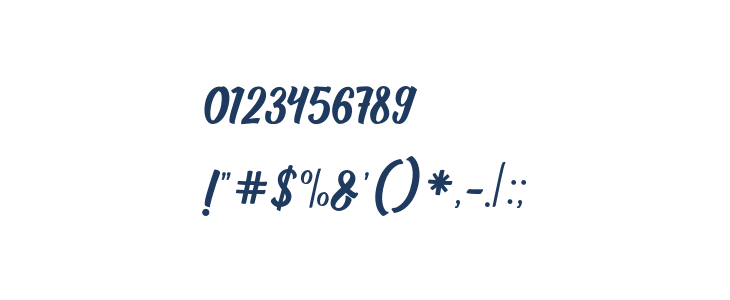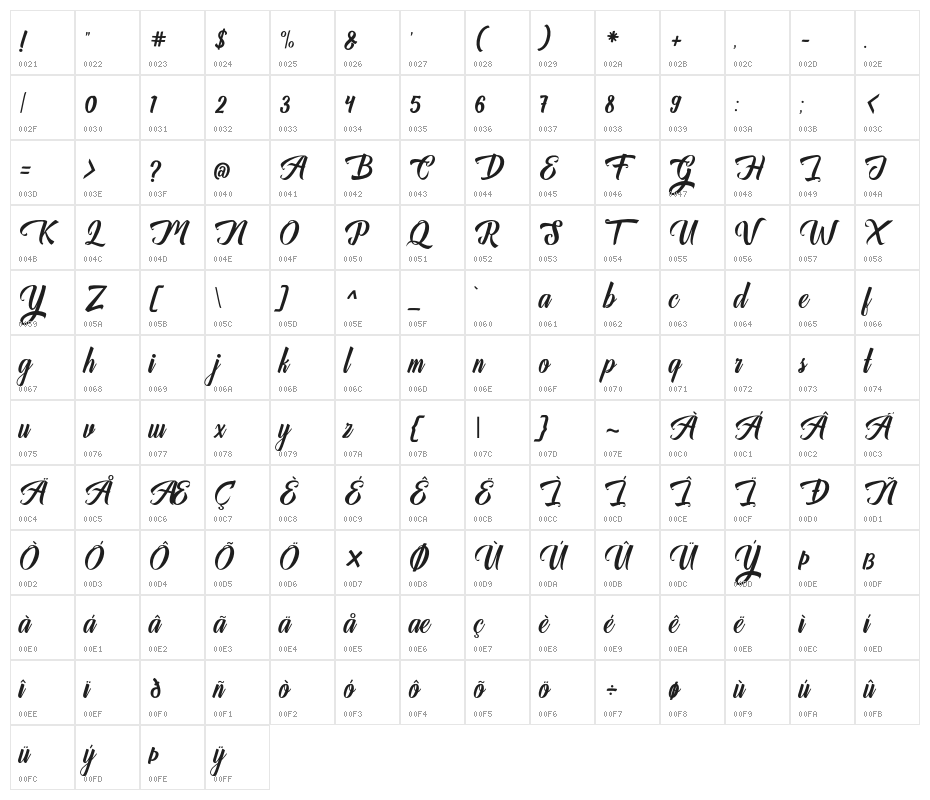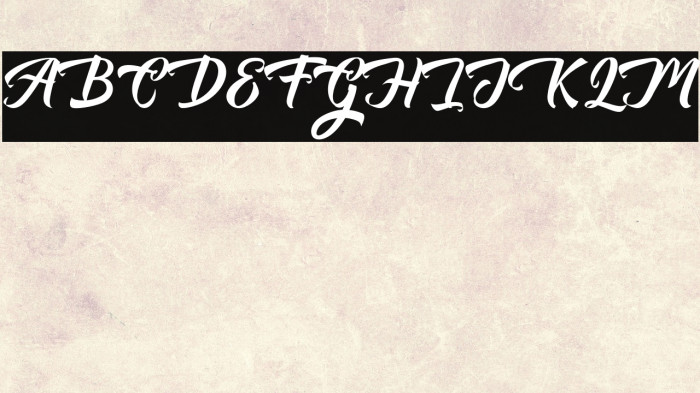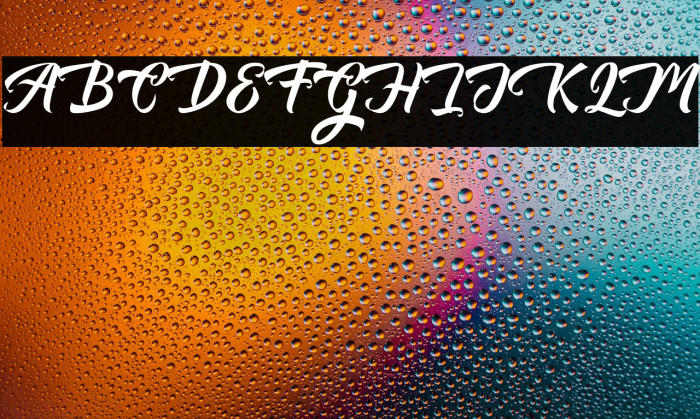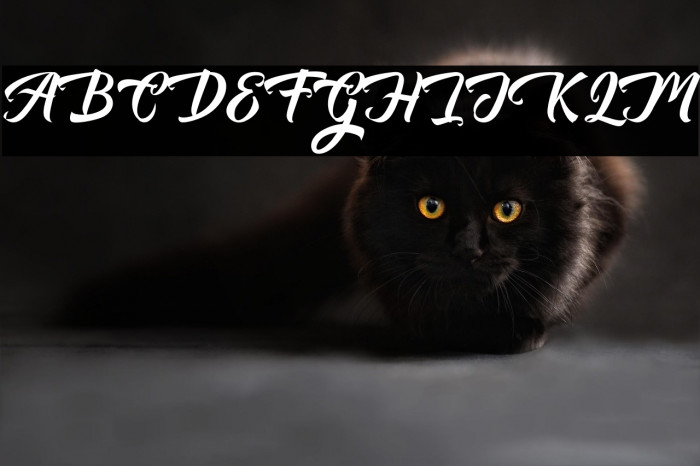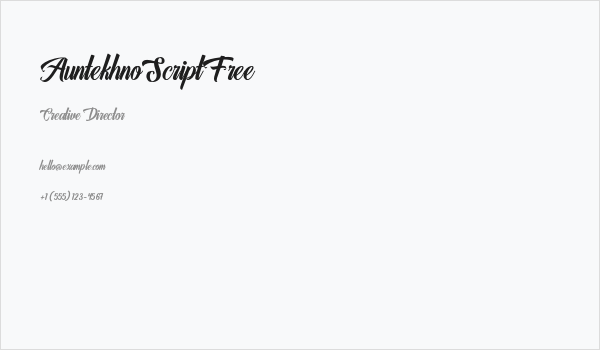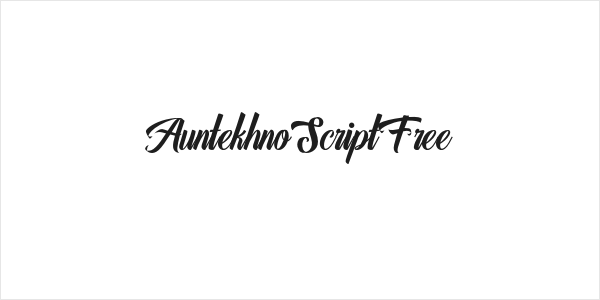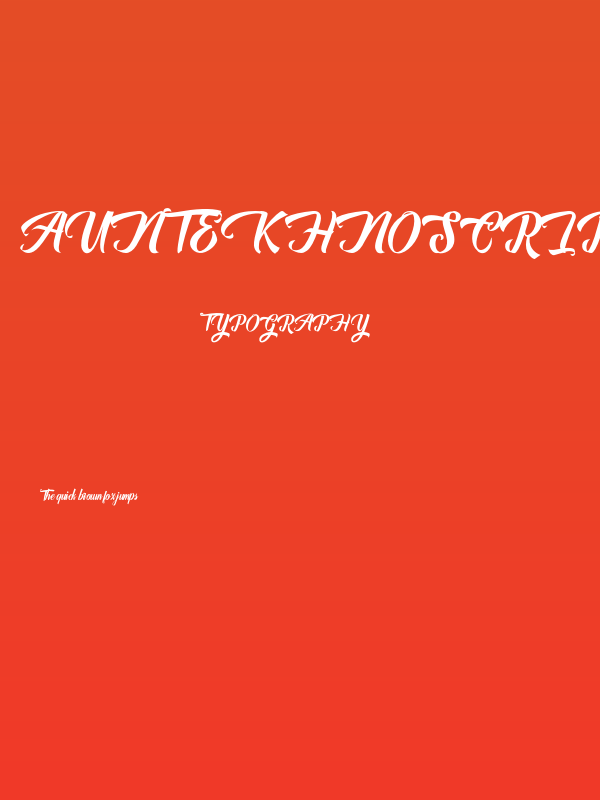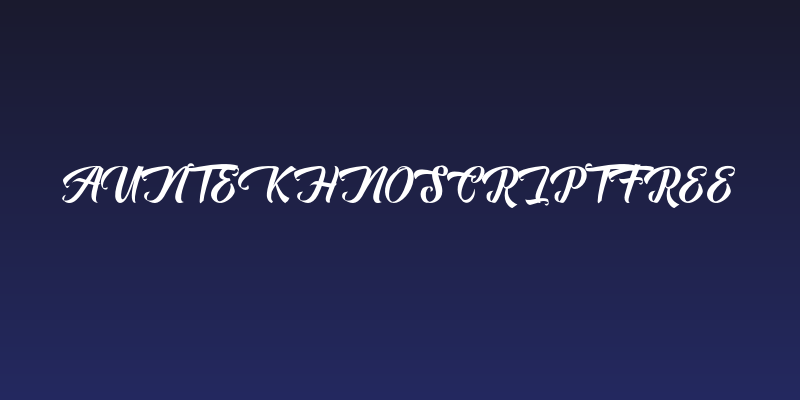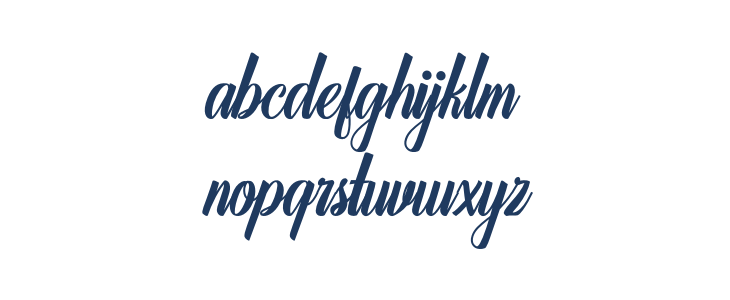
AuntekhnoScriptFree Font
AuntekhnoScriptFree Description
This font features a dynamic and flowing script style, characterized by its elegant and cursive letterforms. The uppercase letters exhibit a graceful, sweeping motion with a slight slant, while the lowercase letters maintain a consistent rhythm and fluidity. The numerals are designed to complement the script style, with curves that echo the overall aesthetic. Special characters are seamlessly integrated, maintaining the font's cohesive look. The font's overall appearance is both sophisticated and approachable, making it suitable for a variety of creative applications.